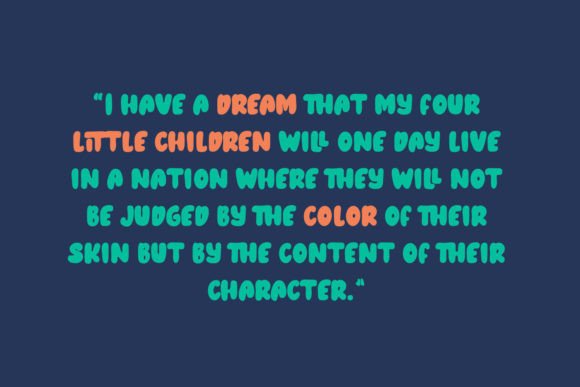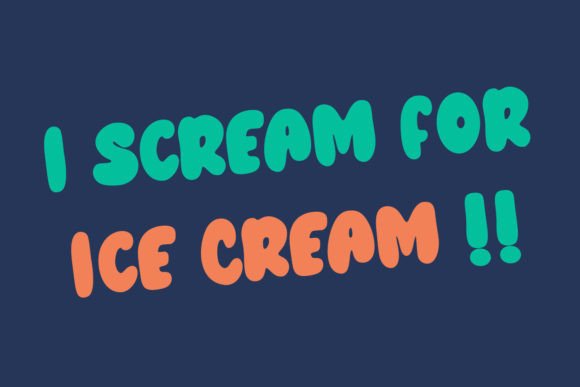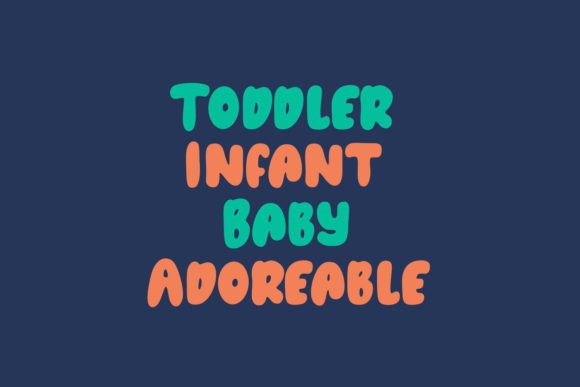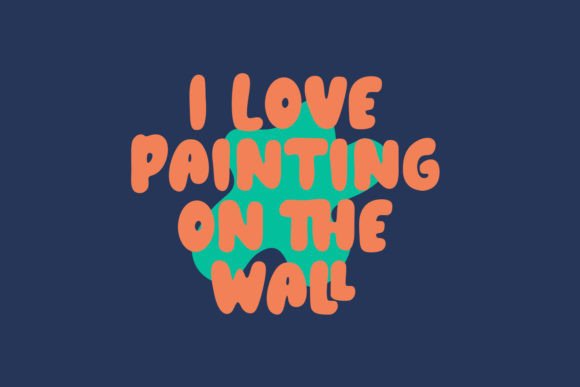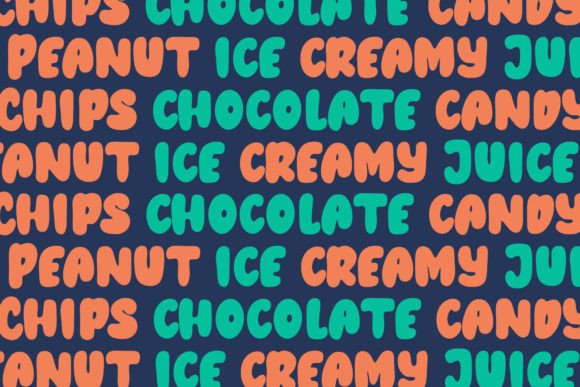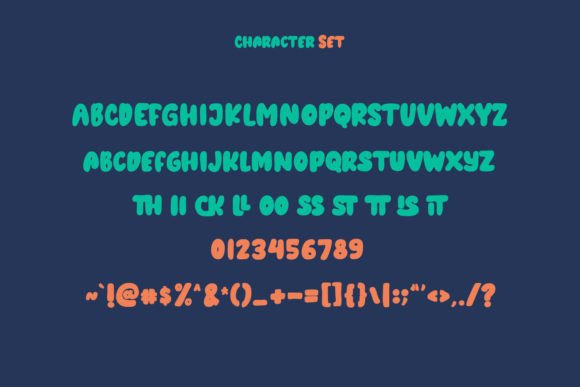
Introduction to Slurpy Font Font
Fonts play a crucial role in design, and the Slurpy Font font is a typeface that brings both character and versatility to any project. Whether you’re working on a branding project, a website, or a print design, the Slurpy Font font offers a unique style that can elevate your work.
Slurpy is a casual wavy handwritten display font that conveys impeccable friendliness.
Its unique style makes it the right choice for children-related crafts, cartoon designs, whimsical posters, or anything that needs a playful touch .
Key Features of Slurpy Font Font
The Slurpy Font font is more than just a typeface – it’s a design tool that helps you communicate your message with style and clarity. Its unique character set and versatile design make it suitable for a wide range of applications, from elegant invitations to bold headlines.
With its carefully crafted letterforms and balanced proportions, the Slurpy Font font ensures readability and visual appeal across all mediums.
The Slurpy Font font stands out with its unique design, exceptional readability, and versatility across various design applications.